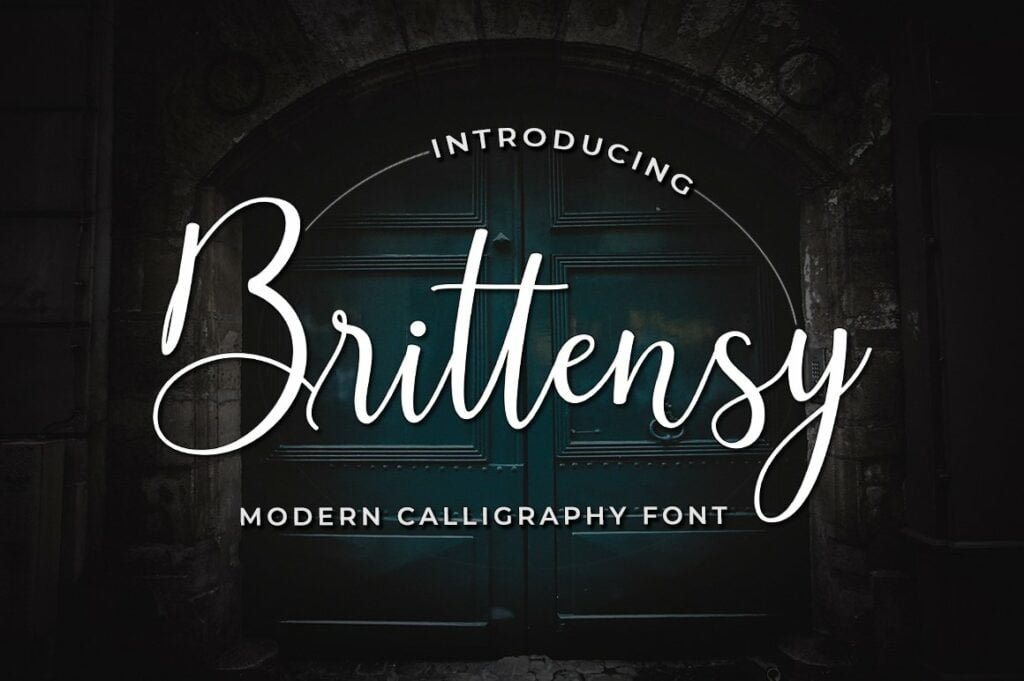
Brittensy Font
Brittensy is a modern calligraphy script font. It has an elegant style which can be used to give your design a feminine feel. Perfectly fit for branding, logo, wedding things, greeting cards, fashion, lookbook, marketing promotion, anytime you want to look fancy elegant but still casual.
Brittensy Calligraphy Script Font